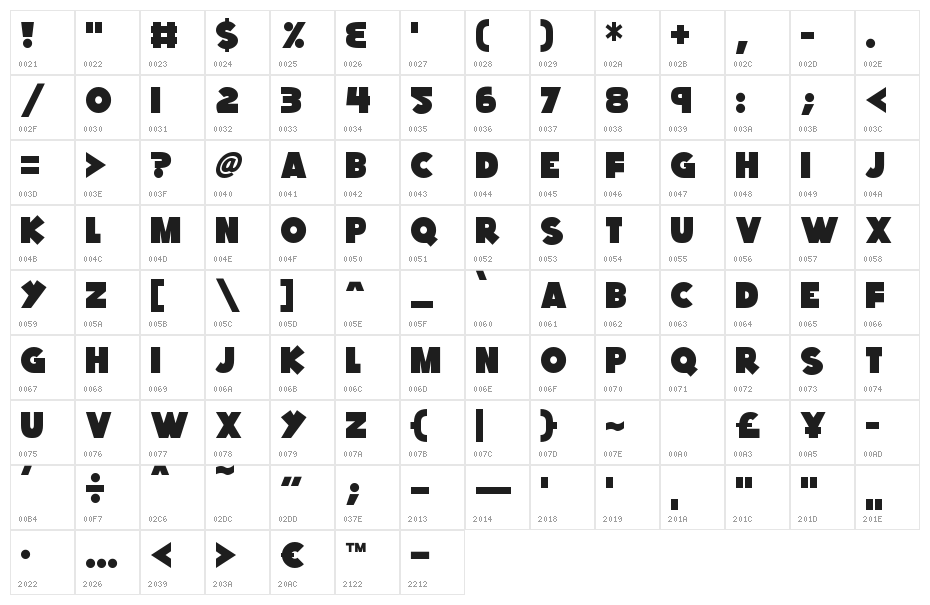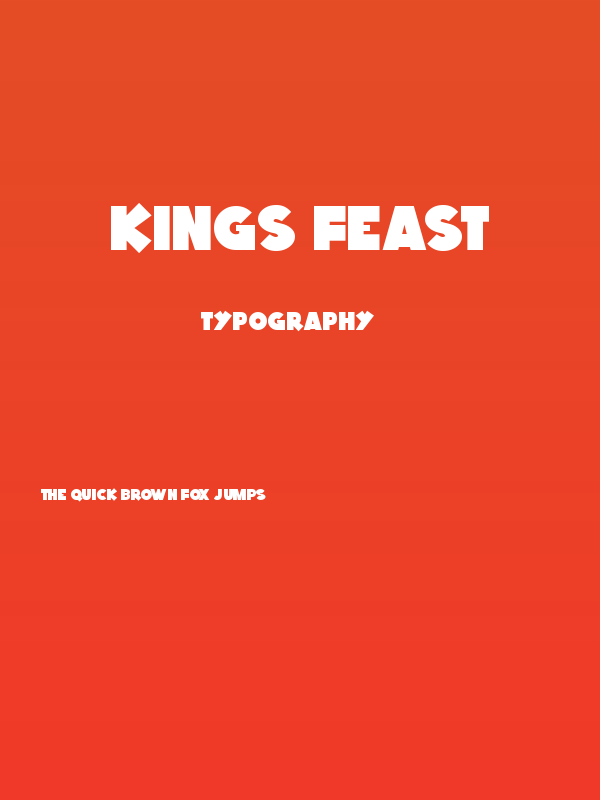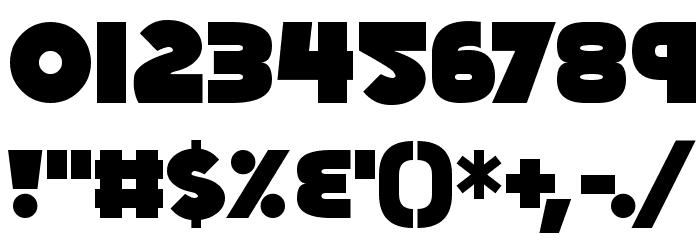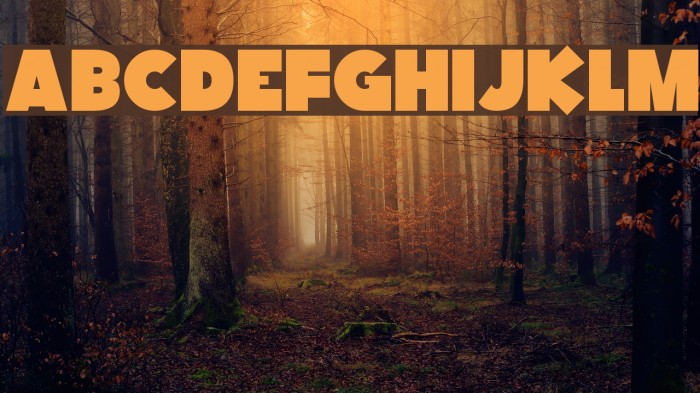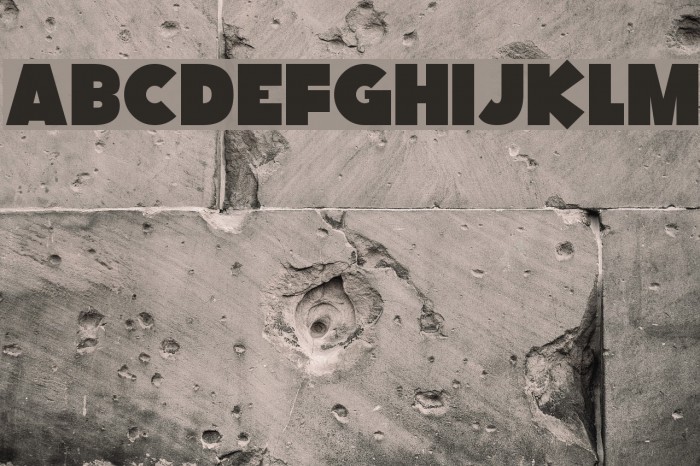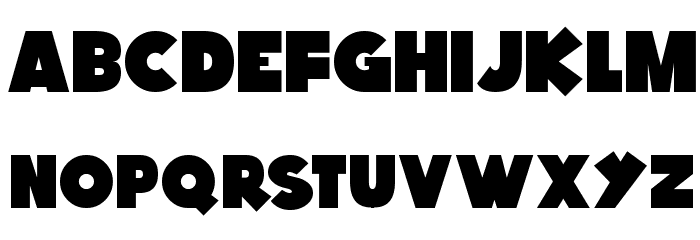
Kings Feast Font
Kings Feast Description
This bold and impactful font features thick, heavy strokes that create a strong visual presence. The characters are uniformly wide, with a geometric and modern aesthetic that makes them stand out. The uppercase letters are particularly striking, with sharp angles and a consistent weight throughout. The numerals and special characters maintain the same bold style, ensuring a cohesive look across all text elements. This font is perfect for making a statement, with its high contrast and solid form.
| Proposed Projects | Ideal for headlines, posters, branding, and any design requiring a strong visual impact. |